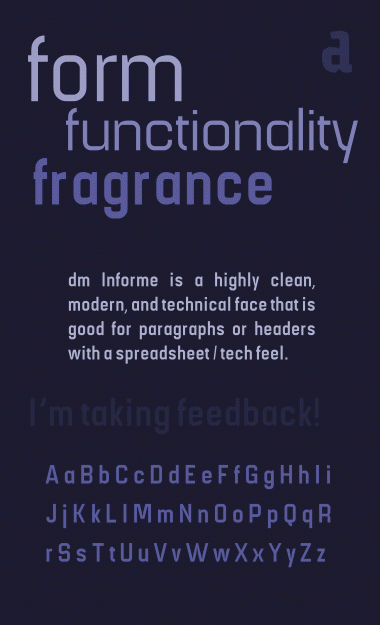
Hooray, it's a family! ;-)
Great specimen.
Your family is growing - and thriving well. 10/10
@laynecom, p2pnut // Thanks for the quick comments! Here's what I have planned:
Finish up “bolding” this font
Make dm Informe 00 a bold version (03)
Create slab serif versions (10, 11)
This is good.
A couple comments...
- The lowercase feels a little heavier than the uppercase, but given the tight grid there probably isn't much you can do about that.
- I think the 't' could use a little taller ascender.
The numbers are a little on the light side, but overall, this is nice.
@aphoria // I'll fix the t. You guessed it — I'm using 0.75-width bricks on a 2 x 2 filter setting, so it's very strict. No can do. I guess the only thing that could possibly fix the solution is to not type in ALL CAPS. ;-)
@jphturtle // yes, the numbers will be thickened up. It's in progress.
I have a suggestion for the lumpy lowercase "s".
I spent far too long screwing around with it. xD
Rahi, thanks for the suggestion, but I'm afraid that it's too thick for this font. I really appreciate your efforts. :-)
Here are a few more ideas for the 's'.
First row without the grid.
Second row with the grid.
Third row with grid in outline view.
@aphoria // I love that first one! I may use that! Thanks so much.
That's much better than what I made while screwing around. xD
I like this. It has a real "machine" feel to it. 10/10